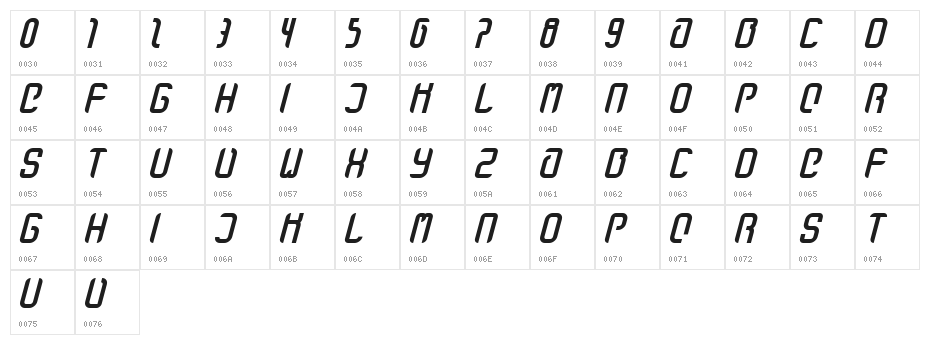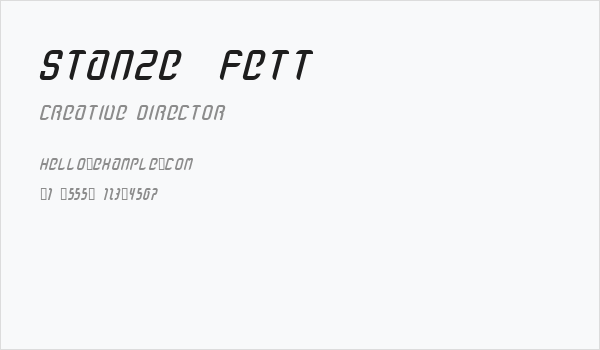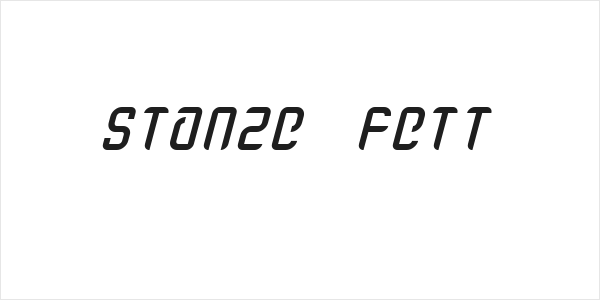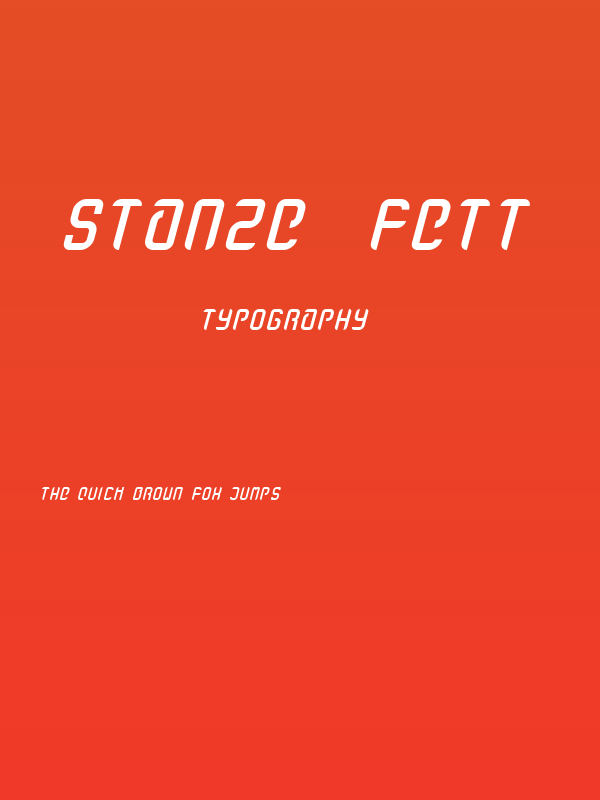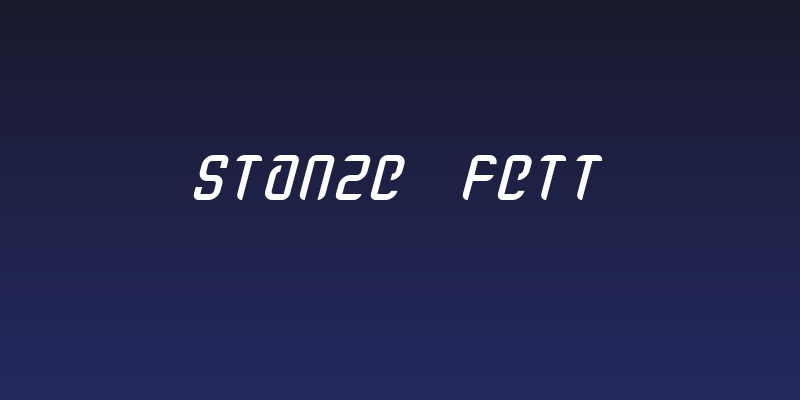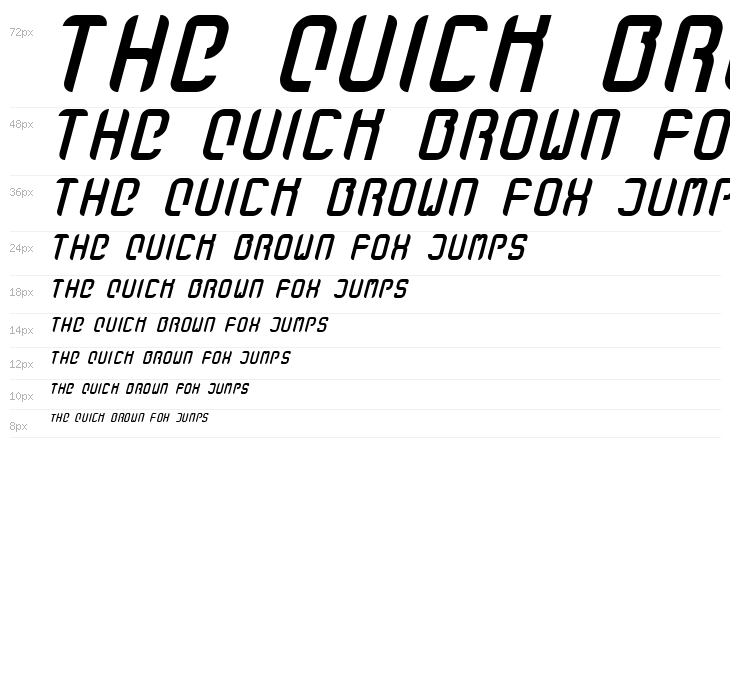
stanze fett Font
stanze fett Description
This font features a bold and dynamic style with a modern twist. The characters are slightly italicized, giving them a sense of motion and energy. The strokes are thick and consistent, providing a strong visual impact. The design is clean and geometric, with rounded edges that soften the overall appearance. The uppercase and lowercase letters maintain a uniform width, contributing to a cohesive look. The numerals are distinct and easy to read, making them suitable for various applications. The special characters are designed to match the overall aesthetic, ensuring a harmonious appearance across all text elements.
| Proposed Projects | Ideal for branding, sports team logos, posters, and dynamic advertising materials. |